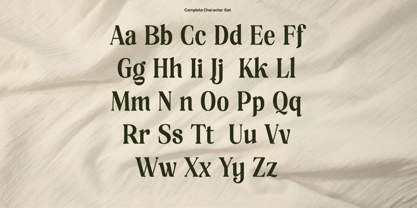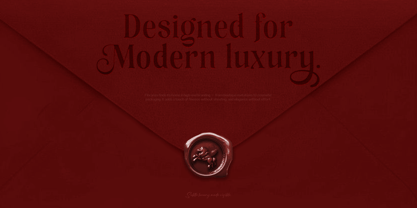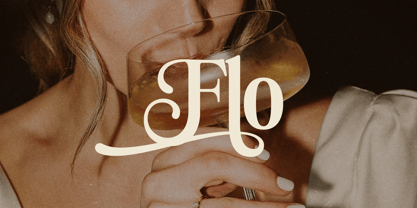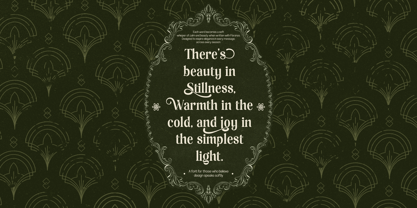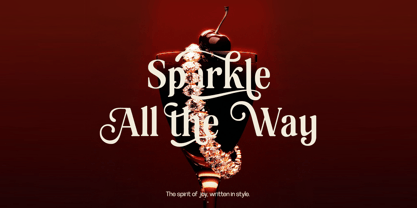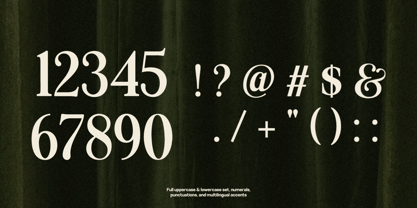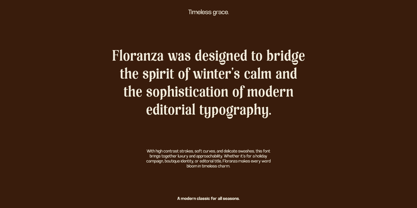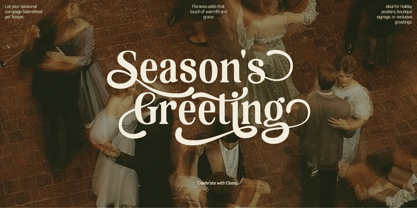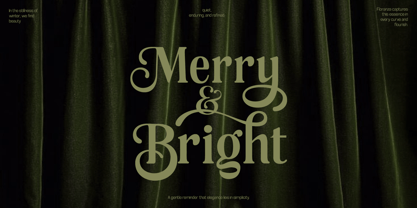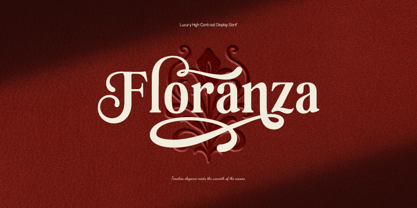
Floranza
by Inviline
The Floranza Font Family was designed by Virgiawan Listanto and published by Inviline. Floranza contains 1 styles.
Floranza is a high-contrast luxury display serif that blends soft curves, elegant swashes, and timeless charm. Perfect for modern editorial titles, boutique branding, packaging, and seasonal campaigns, this font was designed to bring quiet sophistication and festive warmth into every design. What you get: uppercase & lowercase characters, numerals, punctuation, multilingual support, and ready-to-use stylistic alternates — all crafted to add a sense of beauty, calm, and refinement to any visual storytelling.